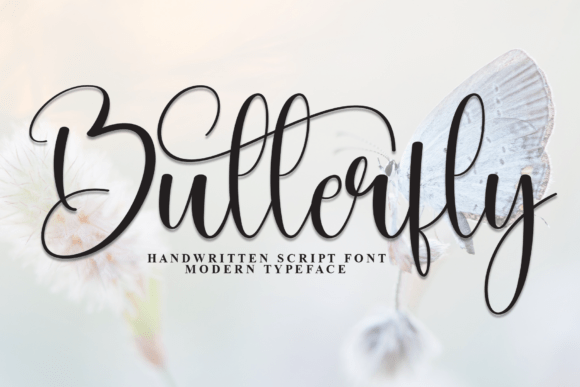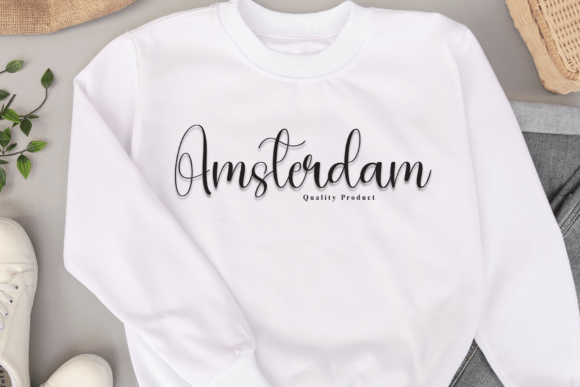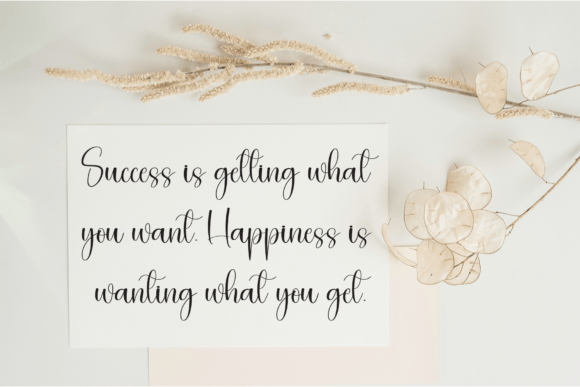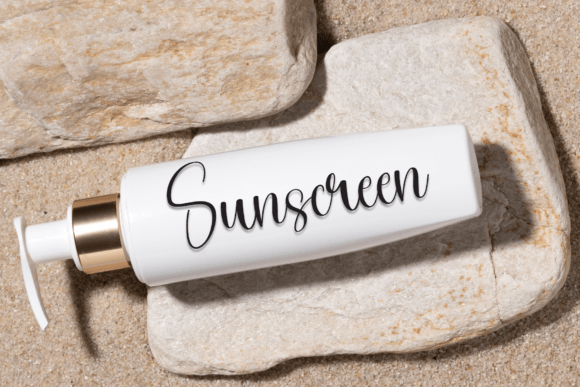
About the Butterfly Font
Step up your design game with Butterfly Font, a font that exudes confidence and style. Butterfly is a stylish handwritten script font that captures elegance and playfulness in every stroke. With flowing curves and a natural rhythm, it adds a personal, charming touch to invitations, branding, and social media. Its graceful design brings warmth, sophistication, and creativity to any project
Butterfly Font Usage Examples
Butterfly Font Example